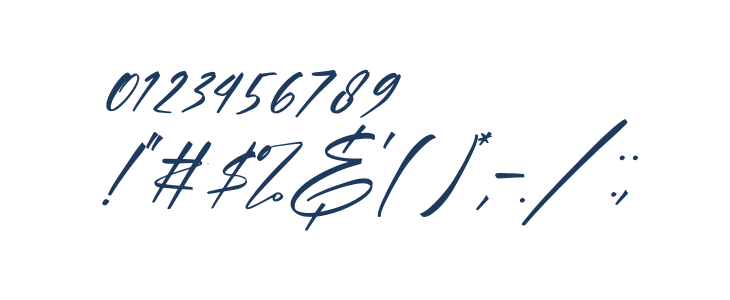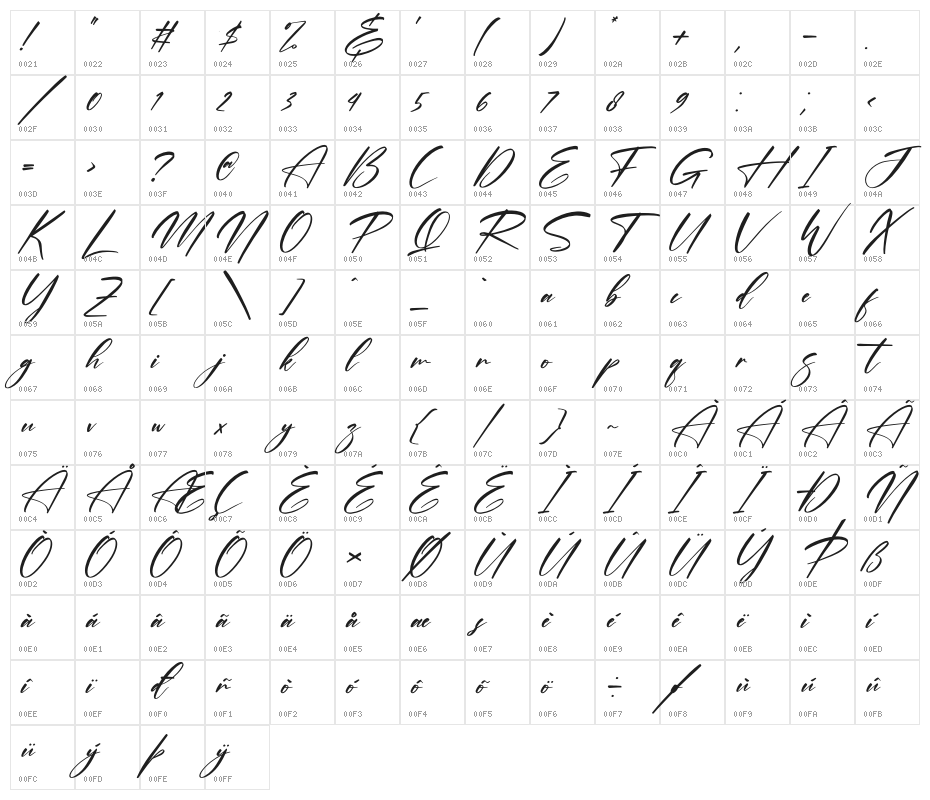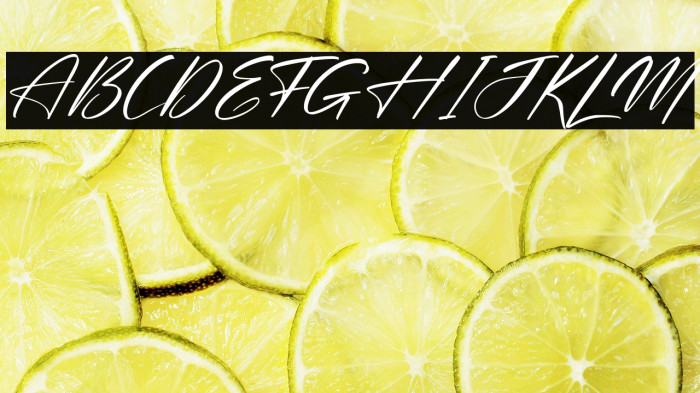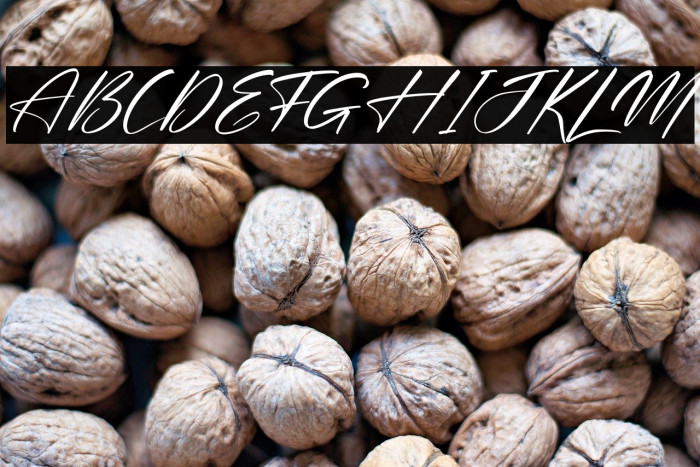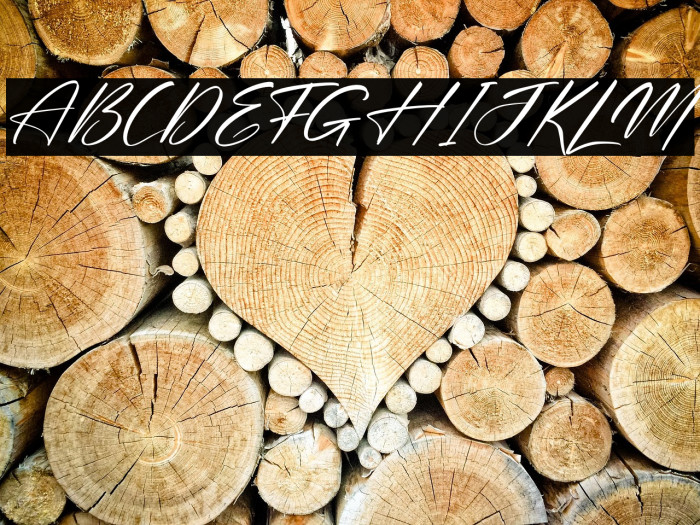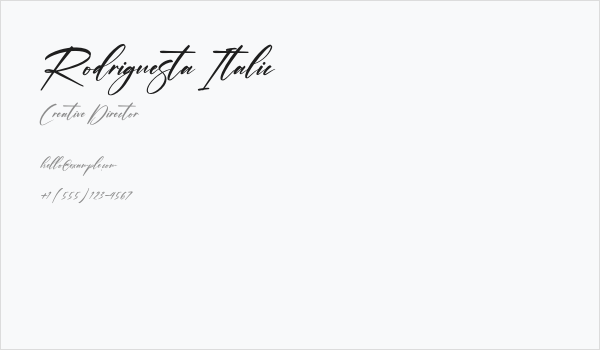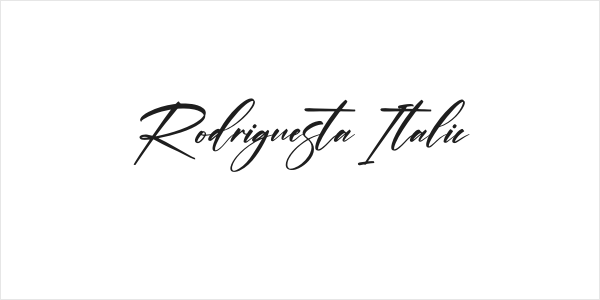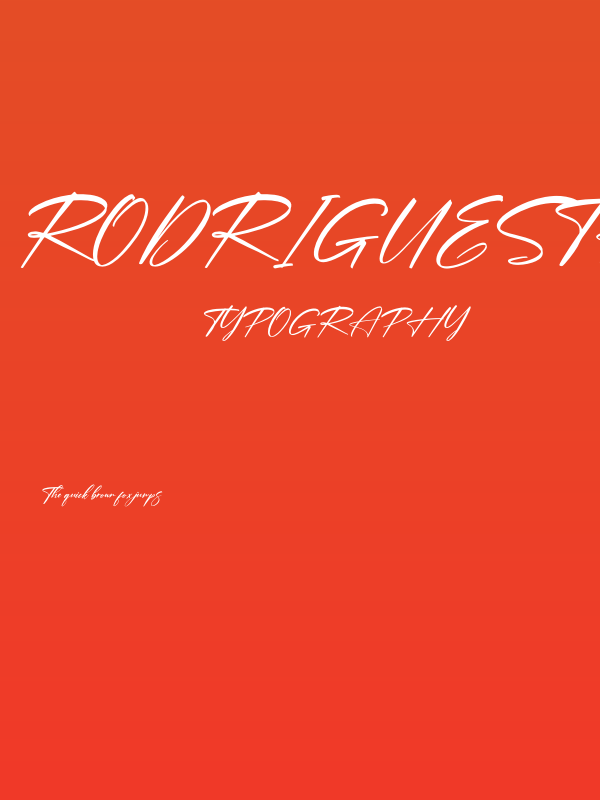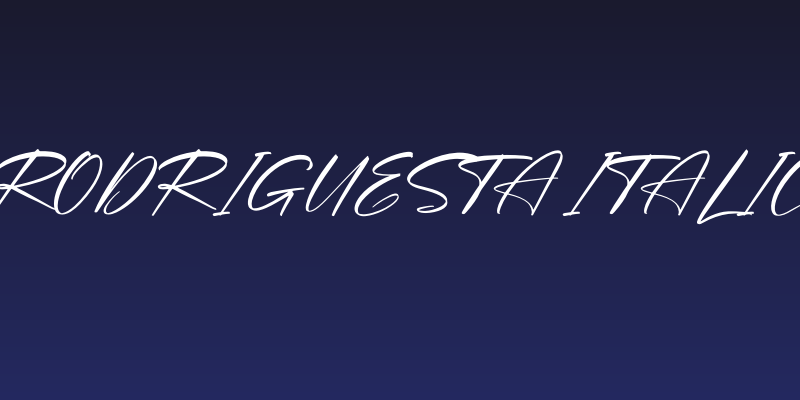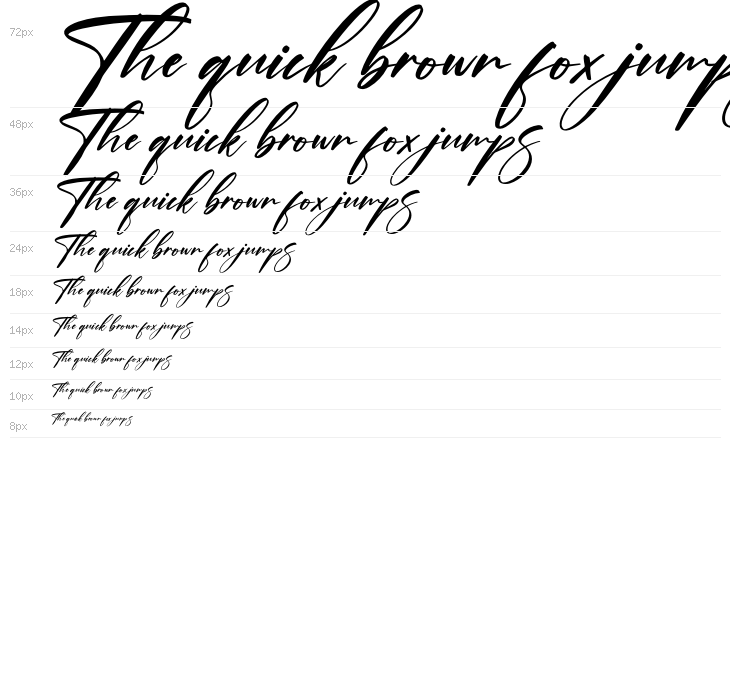
Rodriguesta Italic Font
Rodriguesta Italic Description
This font exudes a sophisticated and elegant style, characterized by its flowing, cursive script. The letters are interconnected, creating a seamless and fluid appearance. The uppercase letters are tall and graceful, while the lowercase letters maintain a consistent slant, enhancing the italic nature of the font. The numerals are stylish and blend well with the overall design. Special characters are crafted with the same attention to detail, ensuring uniformity across the set. This font's design is both artistic and functional, making it suitable for various creative applications.
| Proposed Projects | Ideal for wedding invitations, elegant branding, personal signatures, and artistic projects. |